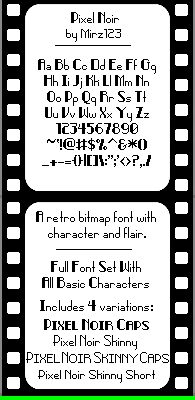
Pixel-Noir Caps Czcionka
Pixel-Noir Caps by Michelle Lehmann, also known as Mirz, is a free monospaced pixel sans serif with broad, squared capitals and a stark arcade-era profile. Small cut-ins and sharply notched corners give the otherwise dense letters a lively, mechanical edge.
Independent game studios and retro-tech brands could use it for title screens, logos, and merchandise. It feels direct and unmistakably digital. The same compact weight links those uses to nightclub posters and electronic-music artwork.
This package contains five fonts: one main font and four variations. Two variations are pixel versions of a blocky “movie” style and a thin, curved style. It also includes a smaller version.
Some rounded tall capitals have a degree of blockiness due to the nature of pixel fonts. Manual anti-aliasing can reduce this effect.